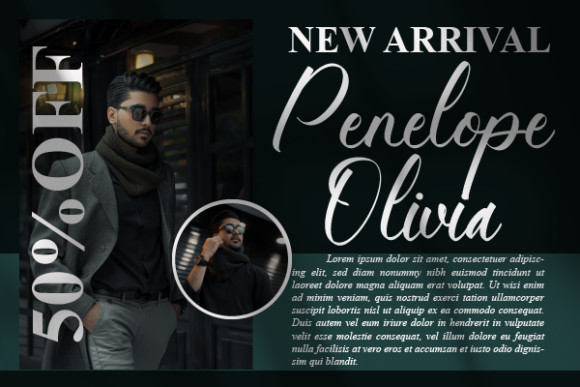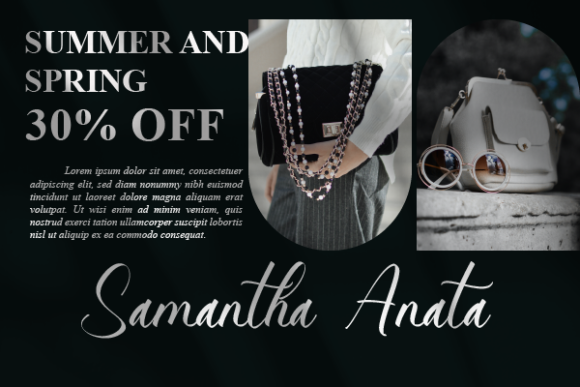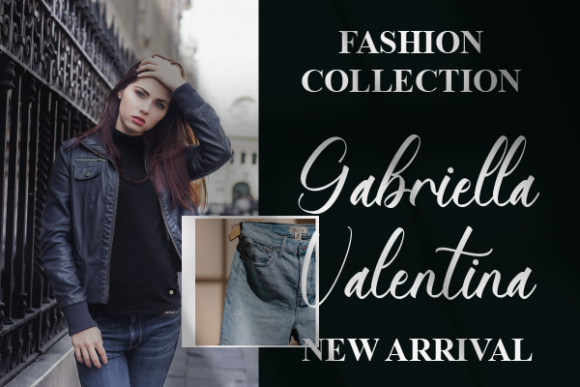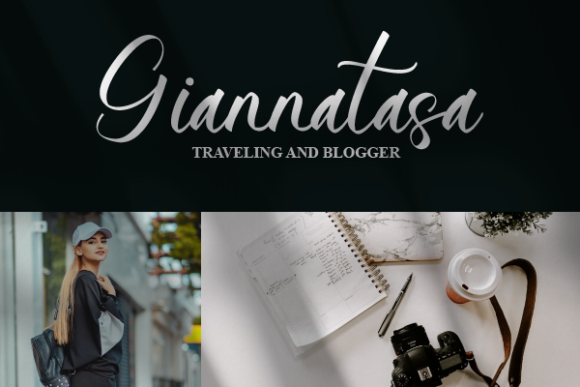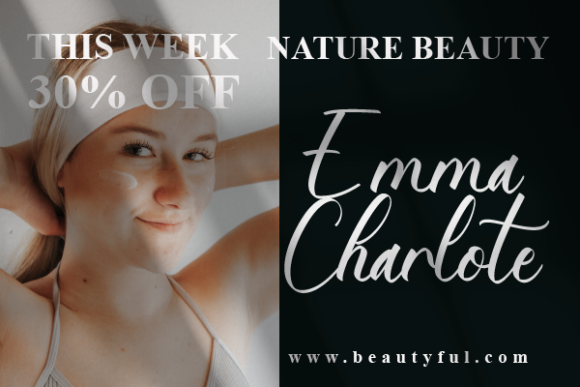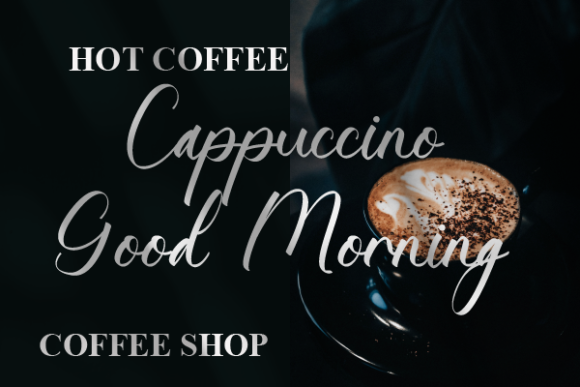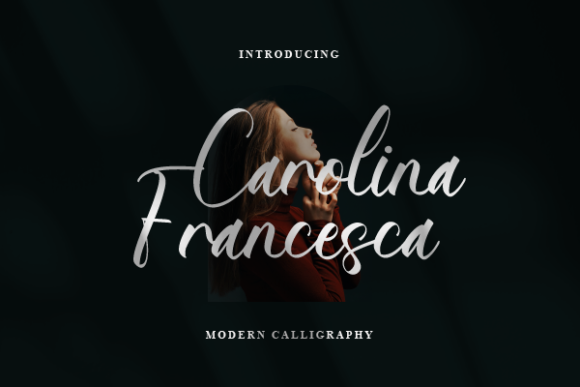
Discover the Elegance of Carolina Francesca Font: Elevate Your Designs with Style
Are you on the hunt for a font that exudes elegance, sophistication, and a touch of personal flair? Look no further than the stunning Carolina Francesca Font. This lovely and stylish script font is making waves in the design community, and for good reason. Its versatility and charm make it the perfect addition to a wide range of projects, from product packaging and branding to magazine covers, social media graphics, and wedding designs.
The Essence of Carolina Francesca Font
Carolina Francesca Font is a script font that embodies the perfect blend of modern style and classic elegance. Its fluid strokes and graceful letterforms make it an instant standout in any design. Whether you’re looking to add a touch of sophistication to your branding or create a memorable social media post, this font is sure to impress.
One of the best things about Carolina Francesca Font is its incredible versatility. Here are just a few ways you can use this beautiful font to elevate your designs:
- Product Packaging: Make your products stand out on store shelves with eye-catching packaging that features the elegant Carolina Francesca Font.
- Branding Projects: Create a lasting impression with a custom logo or brand identity that showcases the sophistication of this script font.
- Magazine Covers: Grab the attention of readers with a stunning magazine cover that features Carolina Francesca Font in a bold, eye-catching design.
- Social Media Graphics: Add a touch of elegance to your social media posts and stories with this beautiful font.
- Wedding Designs: Make your special day even more memorable with custom wedding invitations, programs, and decor that feature Carolina Francesca Font.
Why Choose Carolina Francesca Font?
With so many fonts to choose from, what sets Carolina Francesca Font apart? Here are just a few reasons why designers and crafters are falling in love with this beautiful script font:
- Unique Style: Carolina Francesca Font has a distinctive, one-of-a-kind style that’s sure to make your designs stand out.
- Elegant and Sophisticated: This font exudes elegance and sophistication, making it perfect for high-end branding and designs.
- Easy to Read: Despite its ornate style, Carolina Francesca Font is surprisingly easy to read, making it perfect for use in a variety of contexts.
- Highly Versatile: Whether you’re designing for print or digital, Carolina Francesca Font is the perfect choice.
Tips for Using Carolina Francesca Font
To get the most out of Carolina Francesca Font, here are a few tips to keep in mind:
- Pair with Simple Backgrounds: Let the beauty of Carolina Francesca Font shine by pairing it with simple, understated backgrounds.
- Use for Headlines and Titles: Carolina Francesca Font is perfect for use in headlines and titles, where its elegance and sophistication can really shine.
If you’re looking for a font that will elevate your designs and add a touch of elegance and sophistication, look no further than Carolina Francesca Font. With its unique style, versatility, and ease of use, this beautiful script font is sure to become a favorite in your design arsenal. So why wait? Discover the beauty of Carolina Francesca Font today and take your designs to the next level!